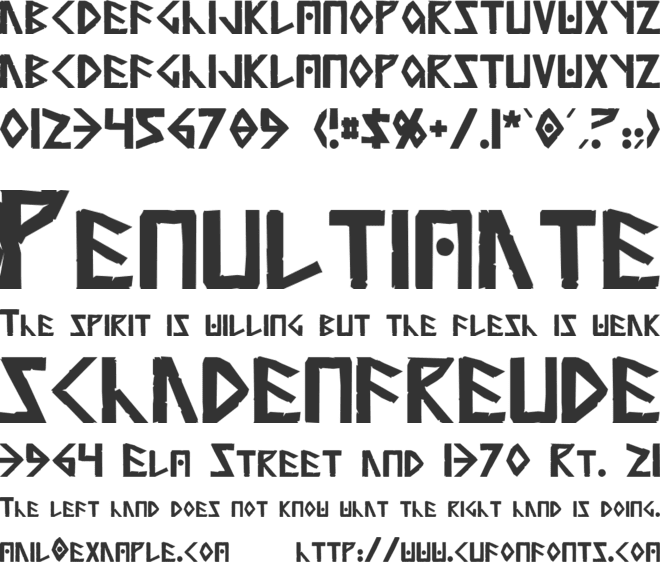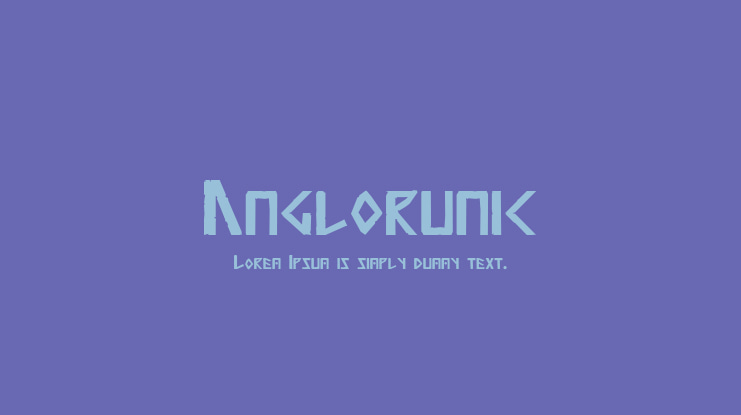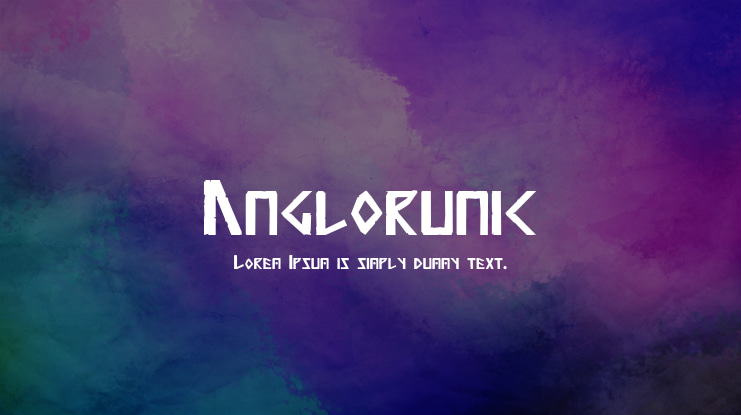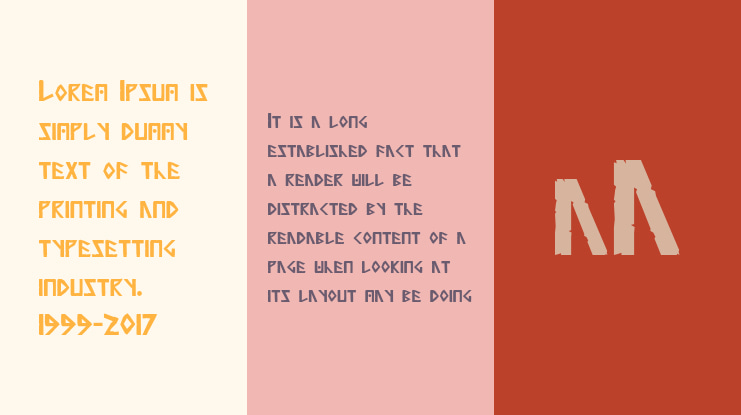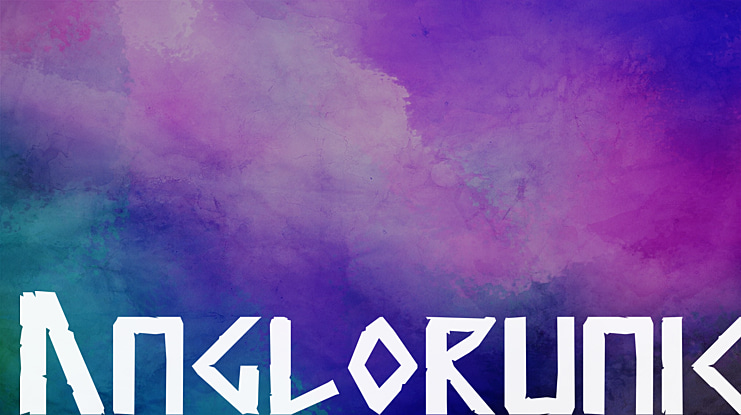
Anglorunic Font
Neale Davidson
Anglorunic is an English-readable version of the classic Olde Dethek’ runes set. The font is a thick, primitive, and blocky face designed to resemble primitive Northern or Dwarven runes. Includes full alphabet, extended punctuation, euro.